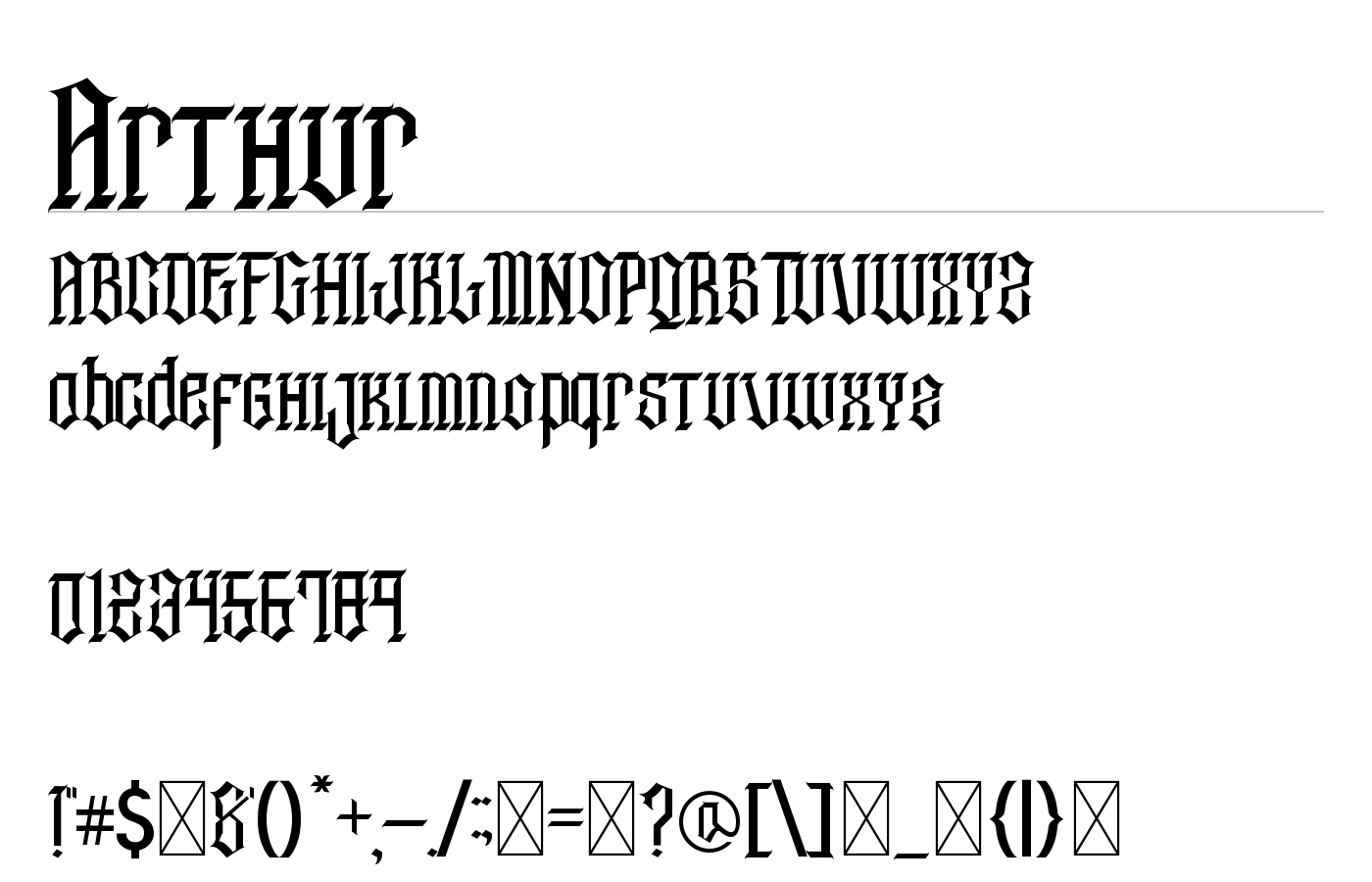
Arthur Font is a bold blackletter typeface that features sharp, angular strokes and a condensed, tall structure evoking a strong Gothic medieval aesthetic. Its dramatic contrast and intricate letterforms make it ideal for headlines, logos, or designs seeking a vintage or traditional historical vibe with a commanding presence.
Arthur Font